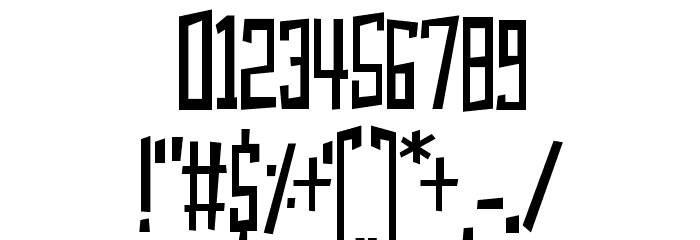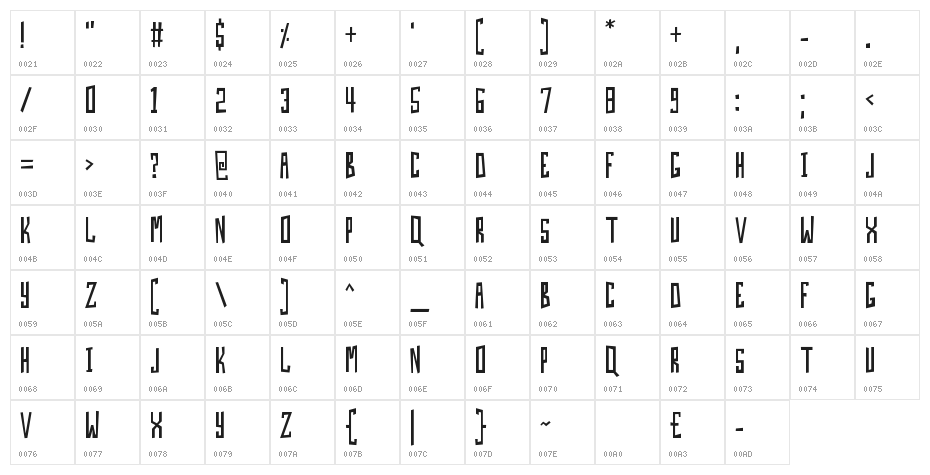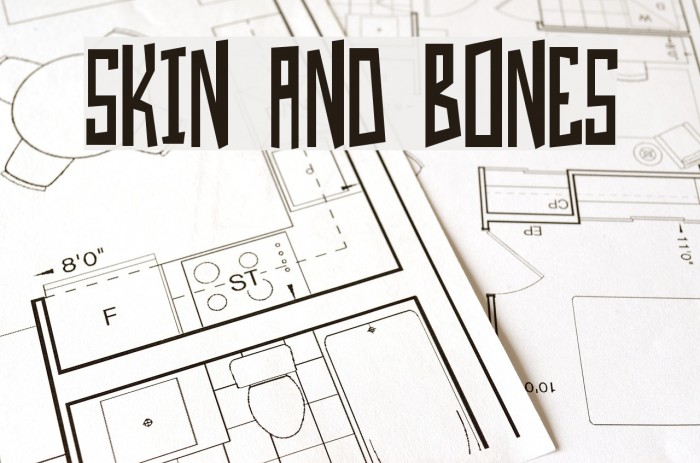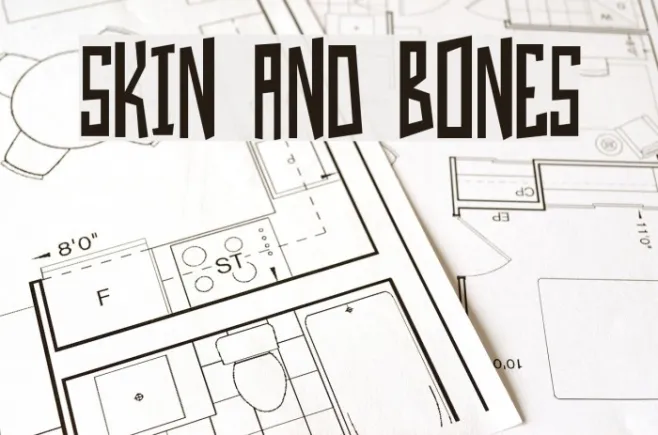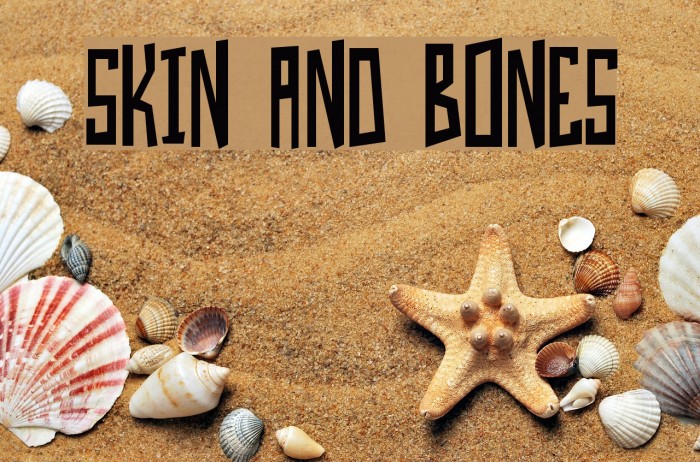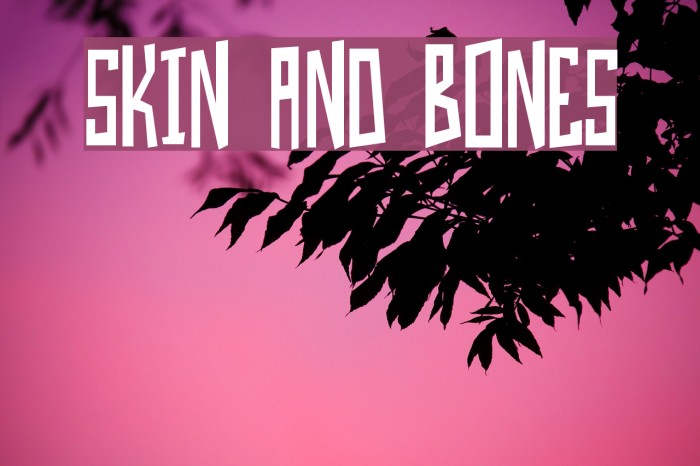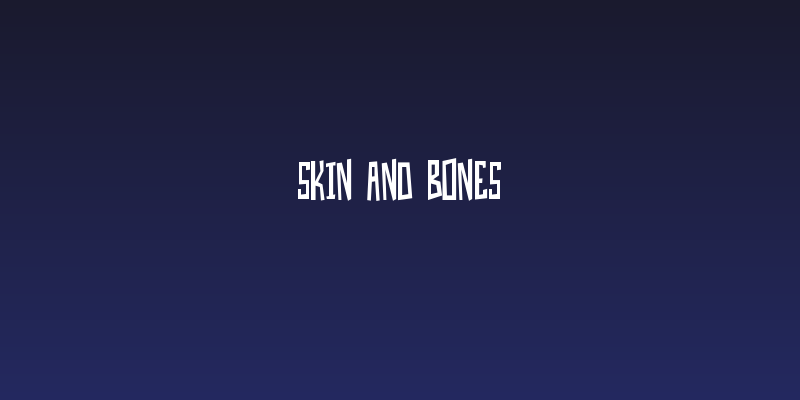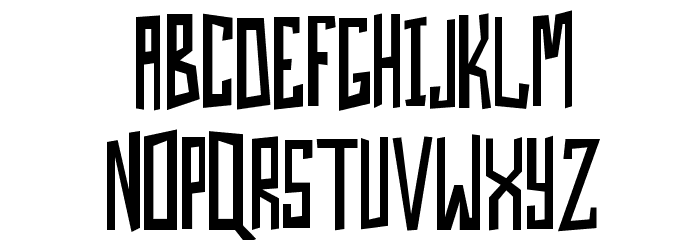
Skin And Bones Font
Skin And Bones Description
This font features a bold and angular design with a distinct geometric style. The characters are tall and narrow, with sharp edges and a slightly condensed appearance. The uppercase and lowercase letters maintain a consistent height, creating a uniform look. The numbers and special characters follow the same angular and geometric theme, providing a cohesive appearance across all glyphs. This font's unique style makes it stand out, offering a modern and edgy aesthetic that is both striking and memorable.